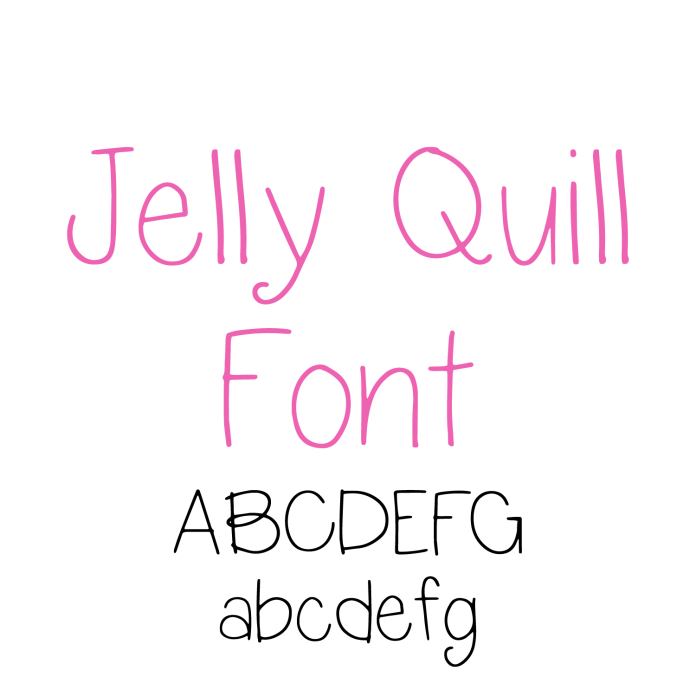
Say hello to Jelly Quill Font – a playful handwritten sans serif font with a charming line-style look, perfect for adding fun and whimsy to your creative projects! With its thin, clean strokes and bouncy character, Jelly Quill is ideal for engraving, foil quill, pen plotting, stickers, cards, labels, and school crafts. The simple, single-line design makes it perfect for precision machines and tools, while still bringing a lively, handmade feel to every project. Whether you're crafting kid-friendly designs, doodles, or whimsical notes, Jelly Quill adds personality and style with every letter. Download now and start creating with joy!